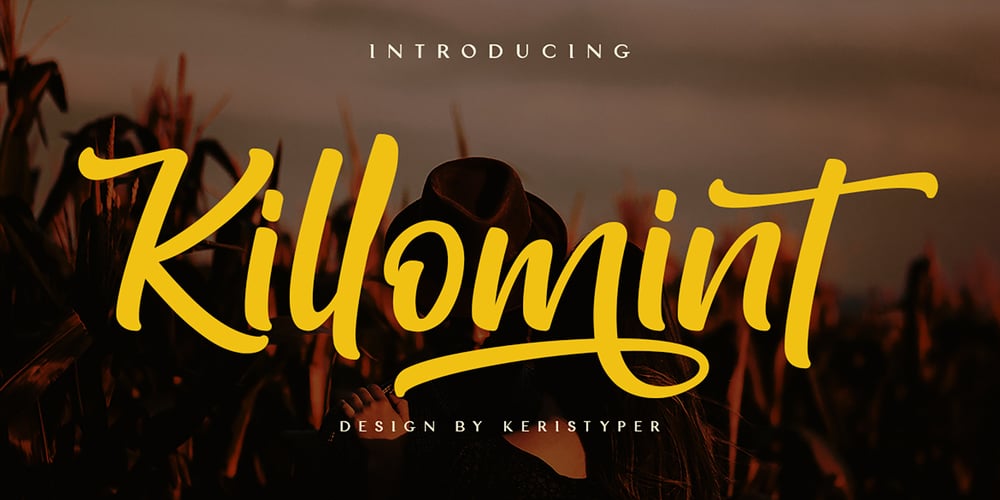
Killomint Font Family was designed by Tezar Tantular and published by Keristyper Studio. Killomint contains 1 styles and family package options. Introducing Killomint which has an elegant and natural hand lettering brush style like handmade. This font is good for logo design, Social media, Movie Titles, Books Titles, short text even long text letters, and good for your secondary text font with sans or serif.Featured: Standard Uppercase & Lowercase Numeral & Punctuation Multilingual : ä ö ü Ä Ö Ü ß ¿ ¡ Alternate & Ligature PUA encoded We recommend programs that support the OpenType feature and the Glyphs panel such as Adobe applications or Corel Draw. so you can use all the variations of the glyphs. Hope you enjoy our fonts!